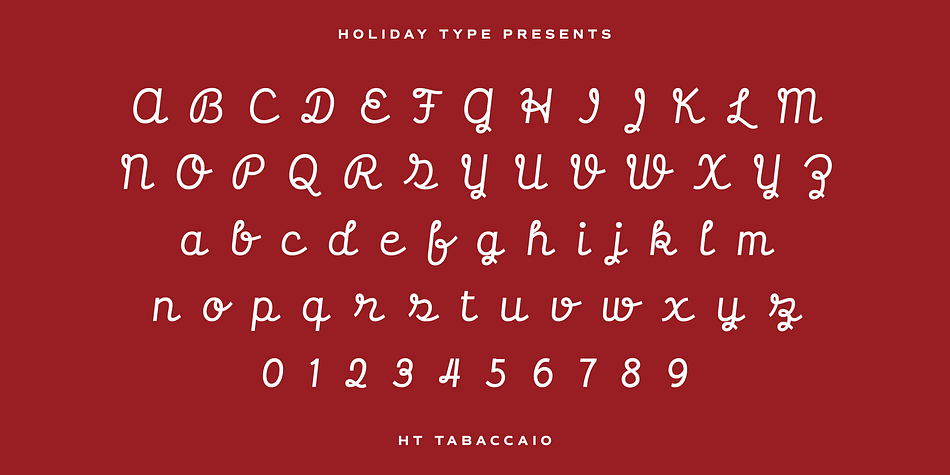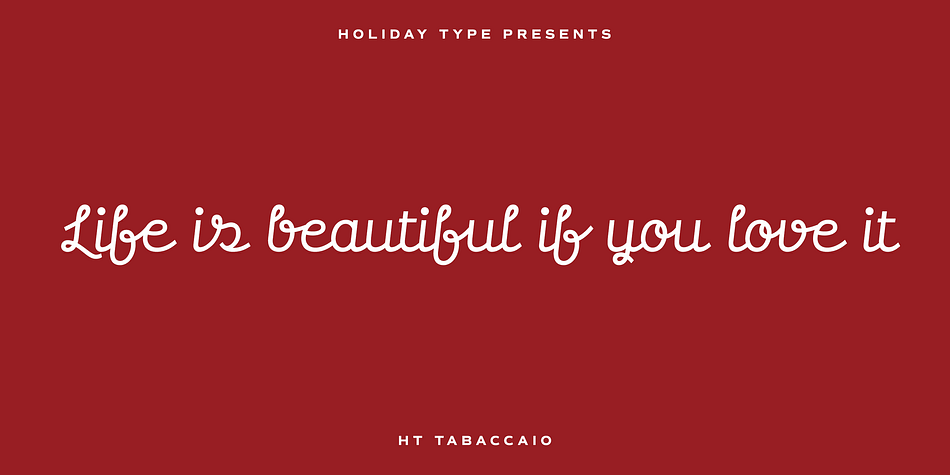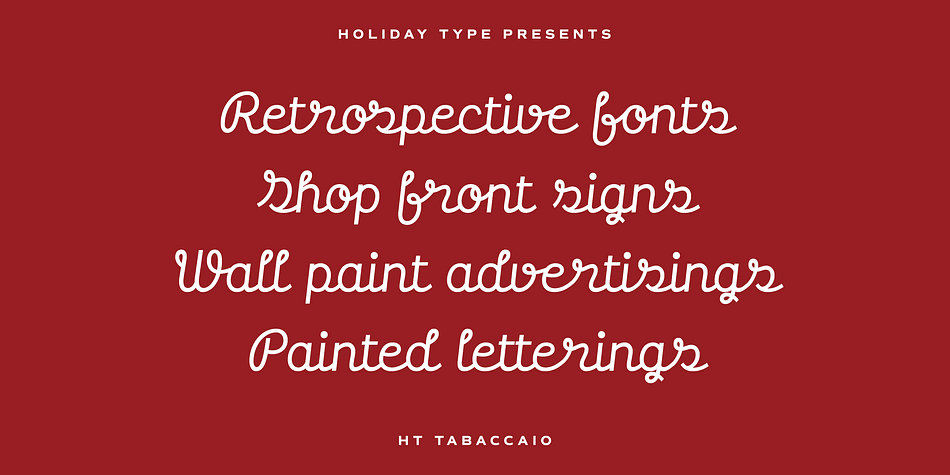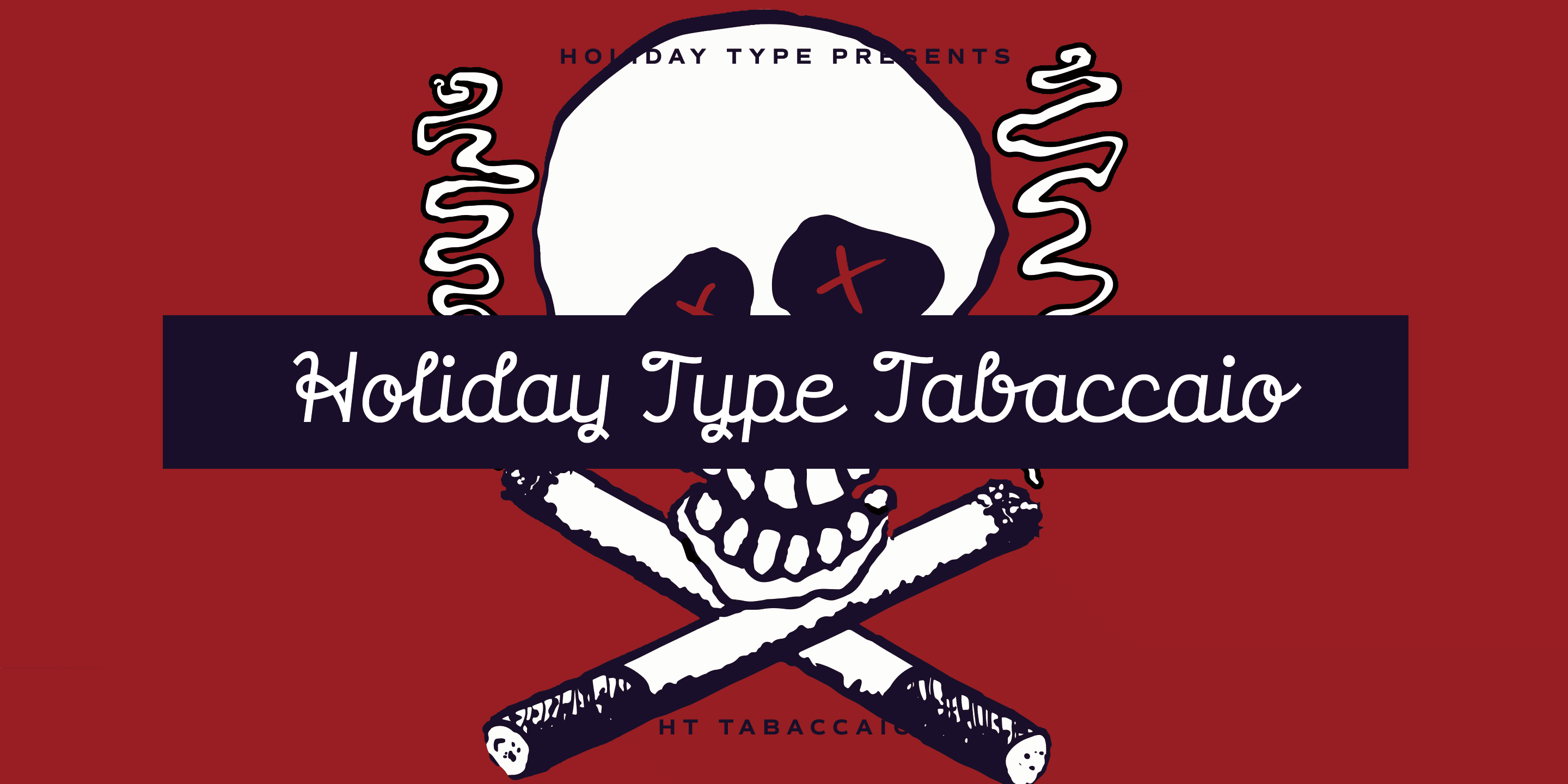
HT Tabaccaio is a script font published by Dharma Type.
HT Tabaccaio is a casual and versatile script. Its very unique kern, loop, and dot makes it unforgettable look. HT Tabaccaio is well-suited for product design, books covers, film posters, branding, magazines, signage and other creative projects.
Holiday Type(HT) Project offers retro hand drawing scripts. Inspired by retro script on shopfront lettering, wall paint advertisements in Italy around 1950s.